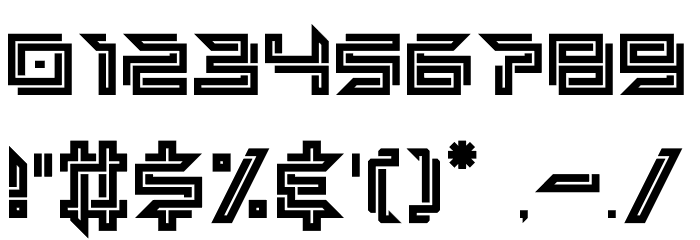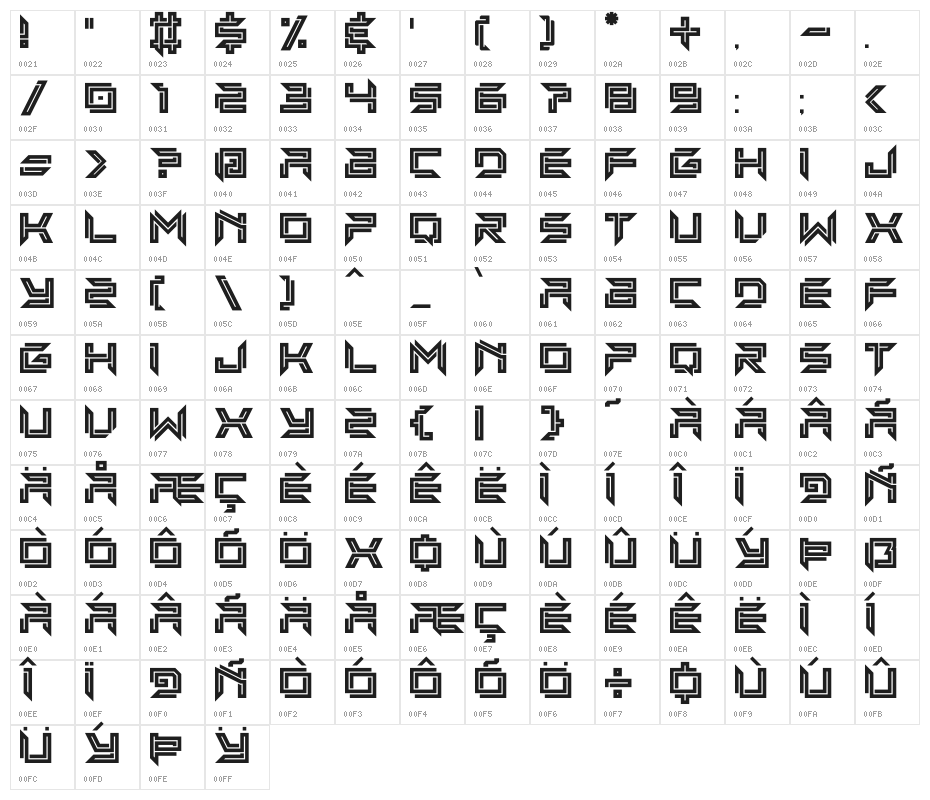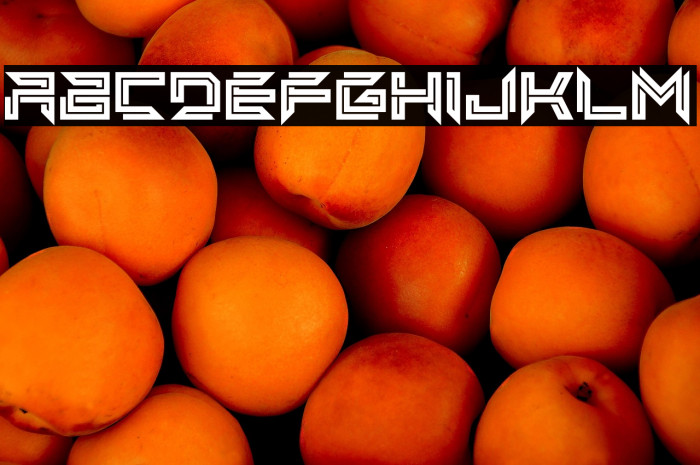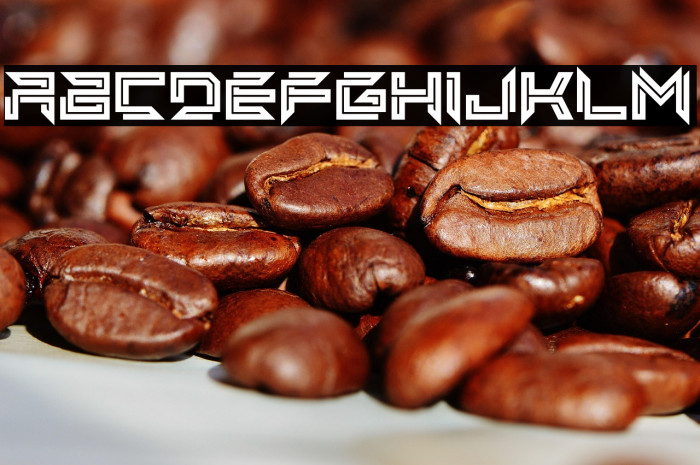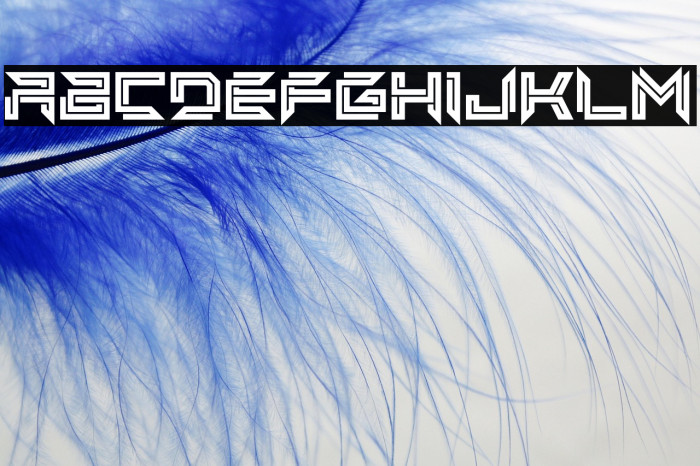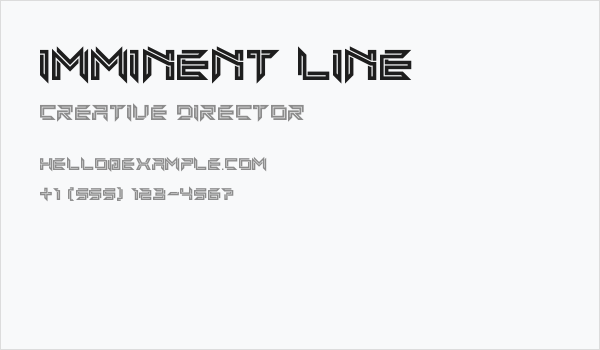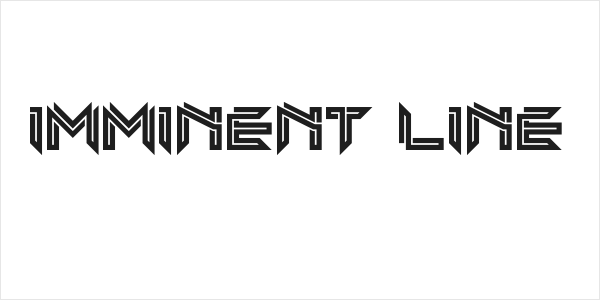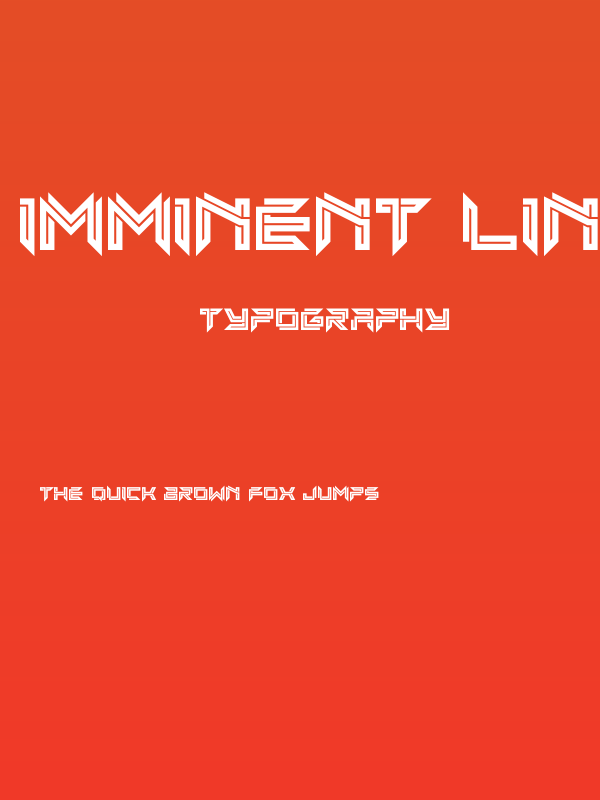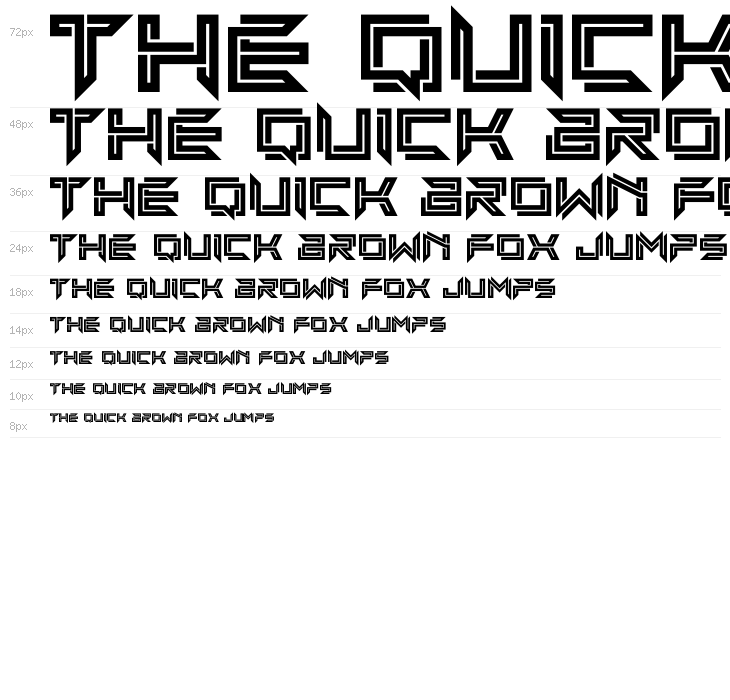
Imminent Line Font
Imminent Line Description
This font features a futuristic and geometric design with sharp angles and bold lines. Each character is constructed with a series of straight edges and pointed corners, giving it a distinctly modern and technological appearance. The uppercase and lowercase letters maintain a consistent style, with the uppercase being slightly more pronounced. The numbers and special characters follow the same design principles, ensuring uniformity across all elements. The font's unique style makes it stand out, ideal for projects that require a modern and edgy aesthetic.
Proposed ProjectsIdeal for sci-fi themed designs, video game titles, tech branding, and futuristic posters.